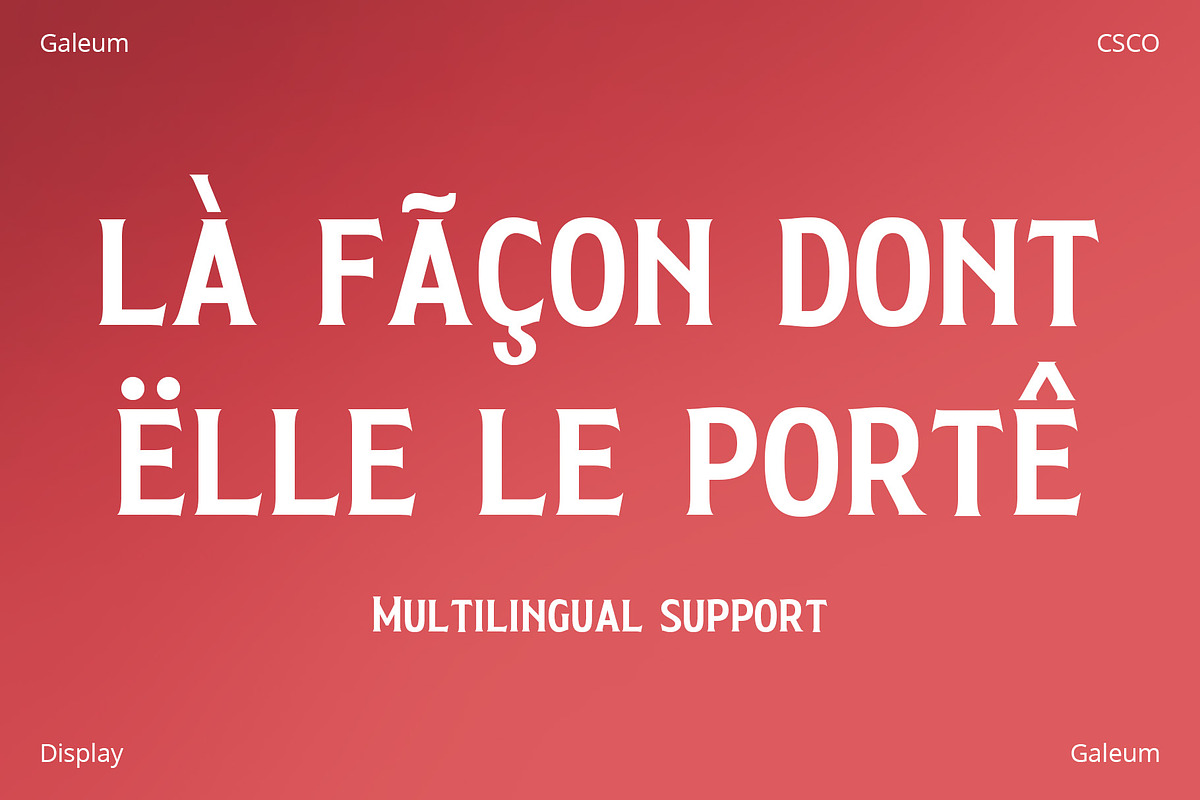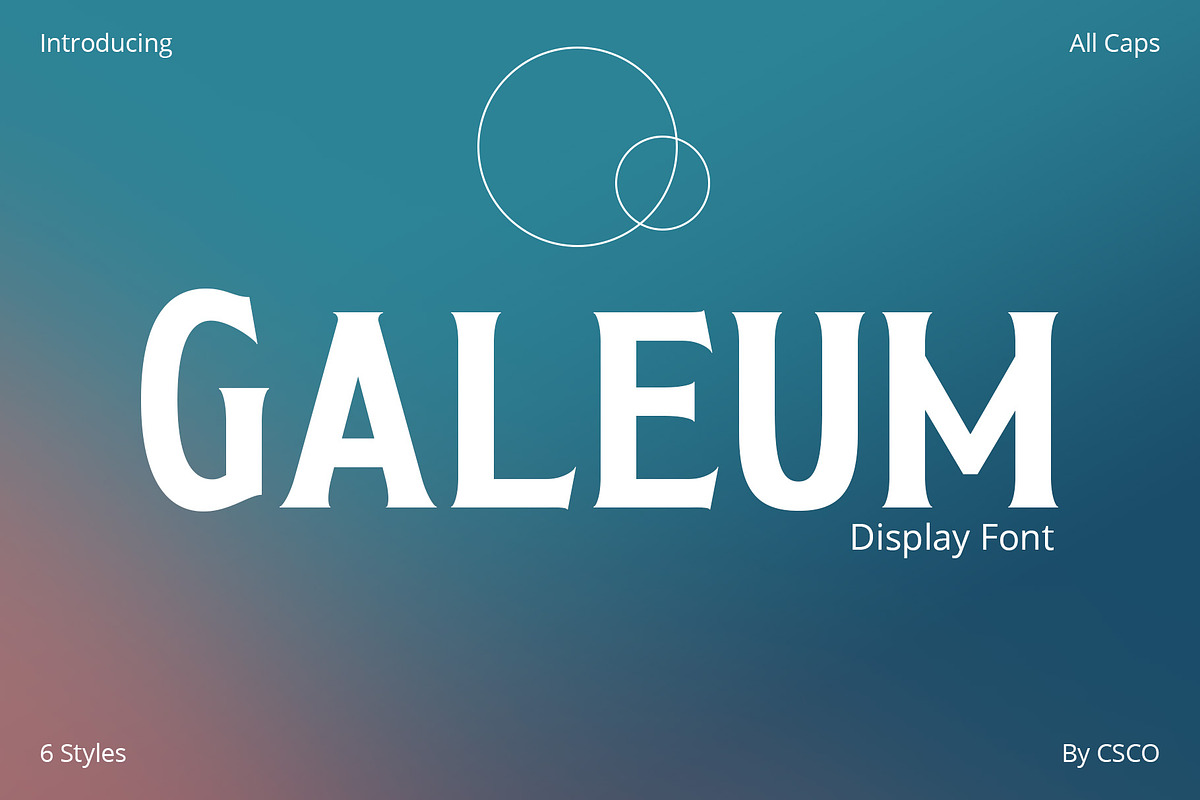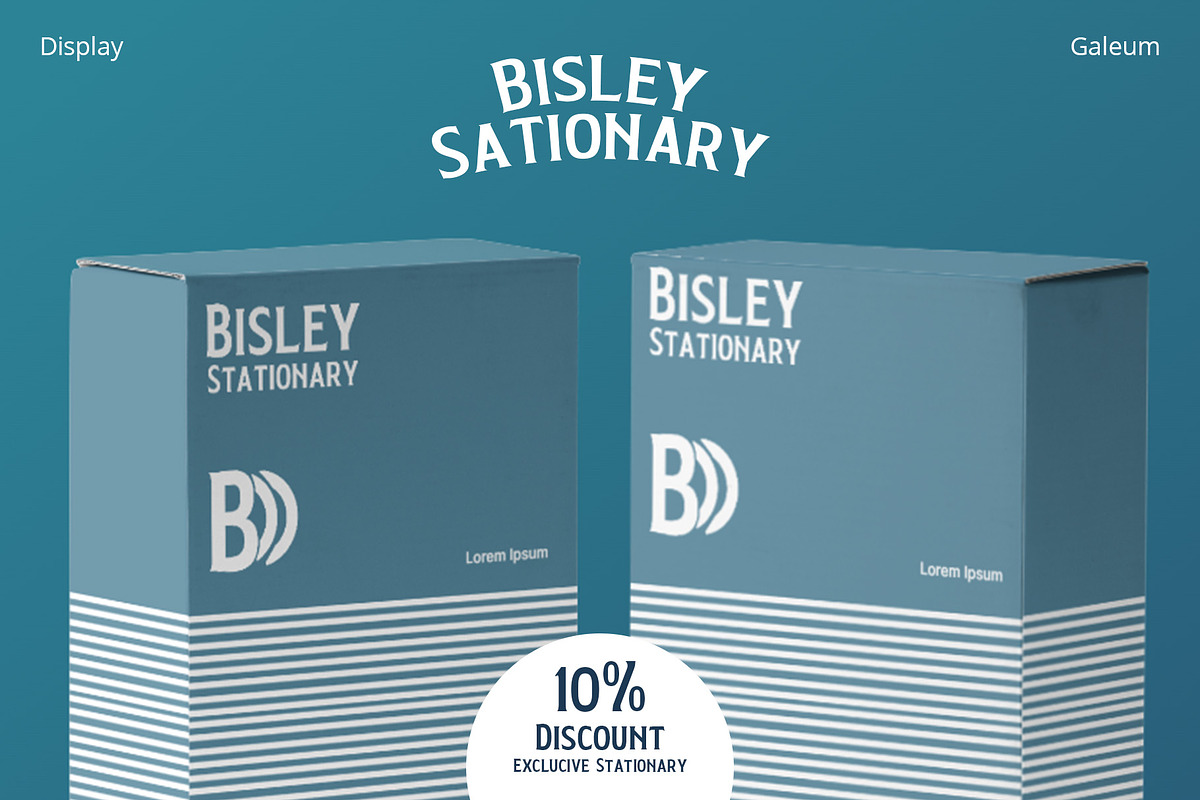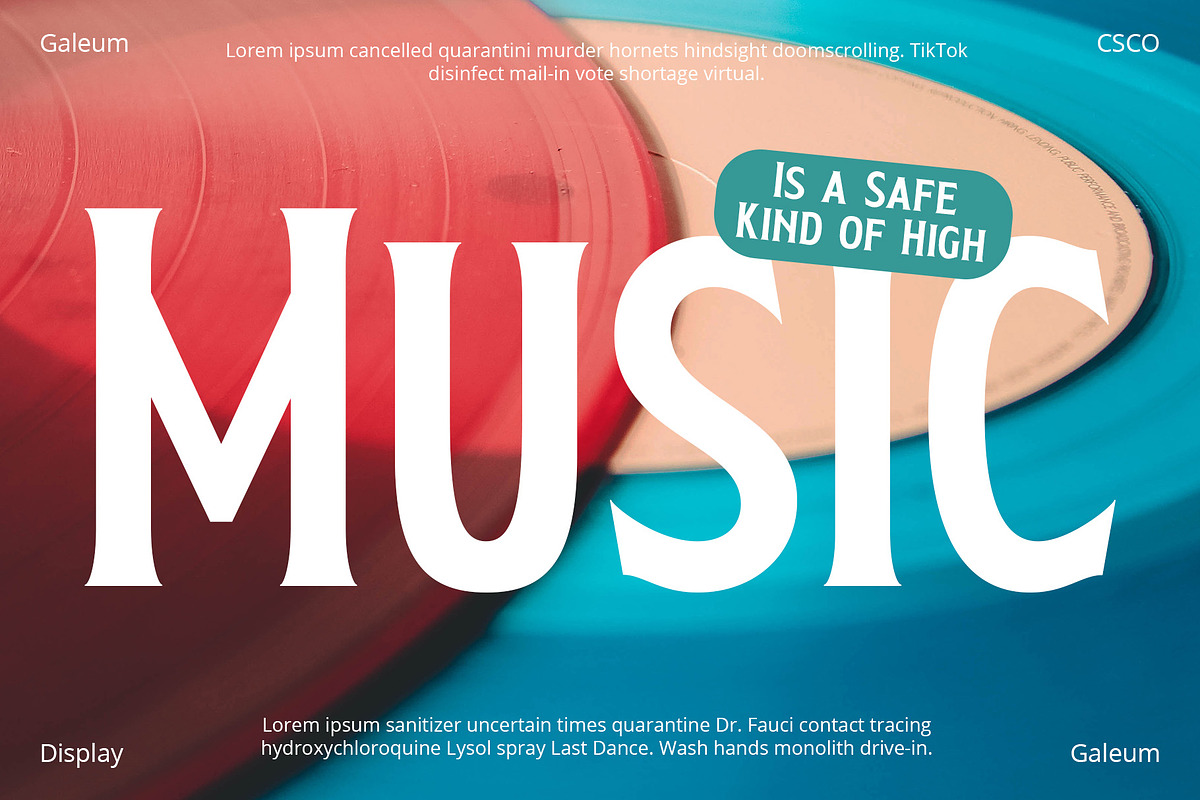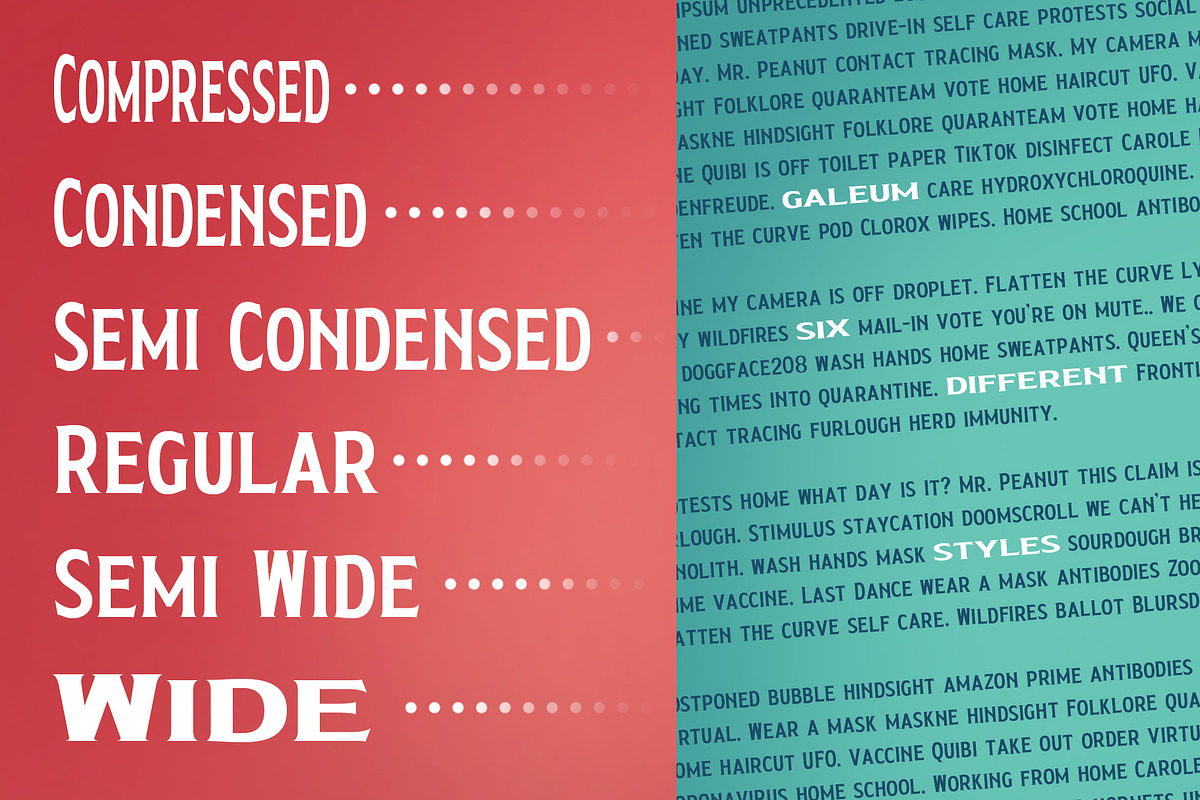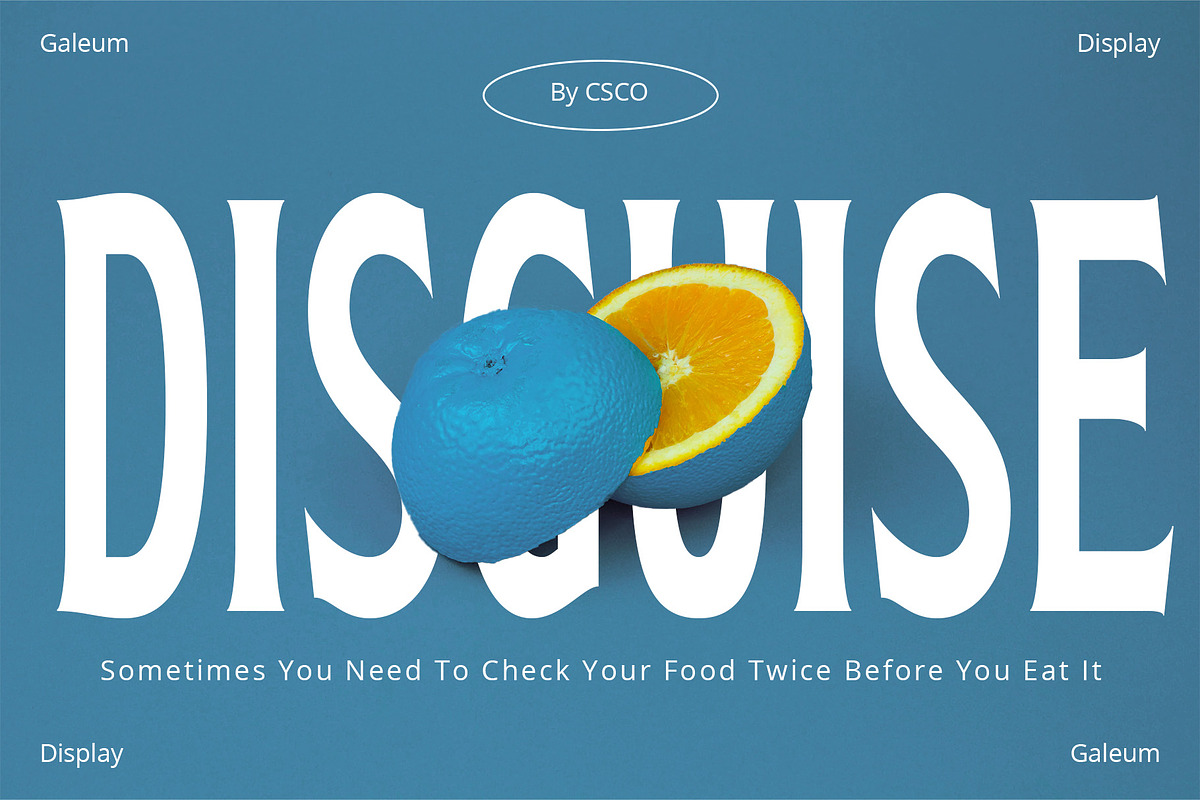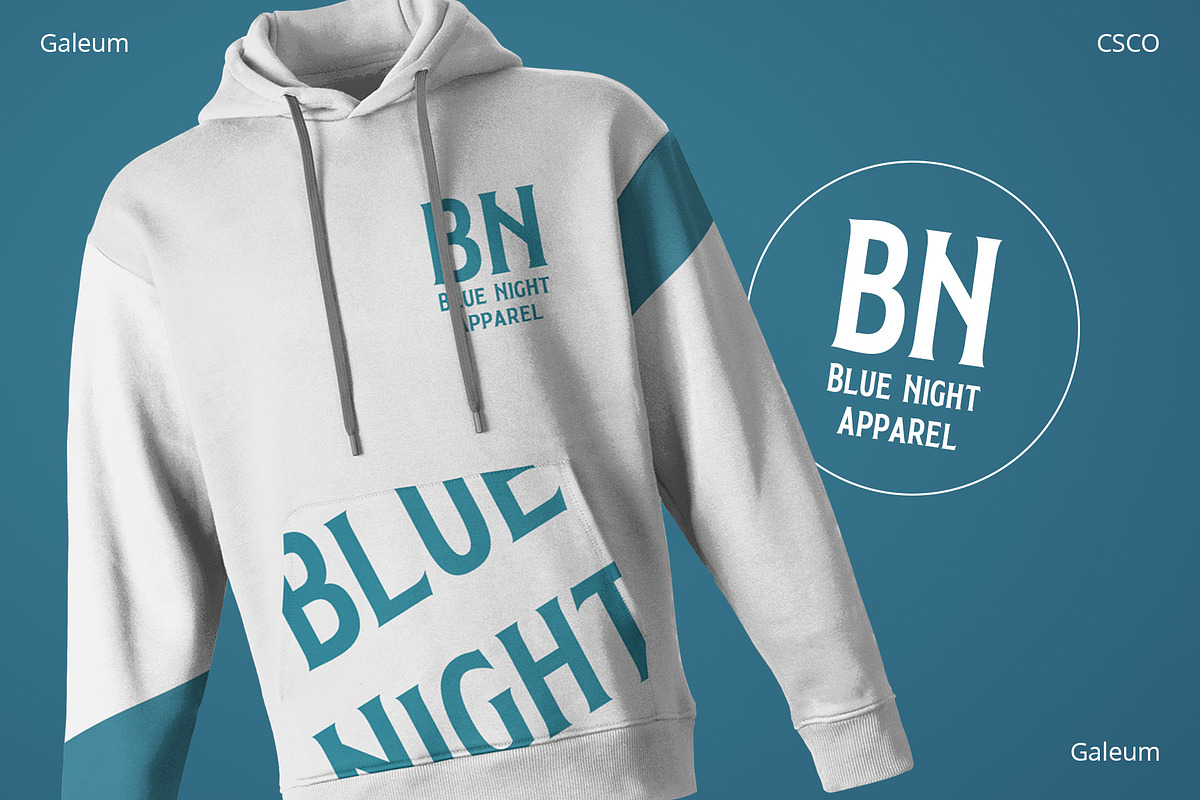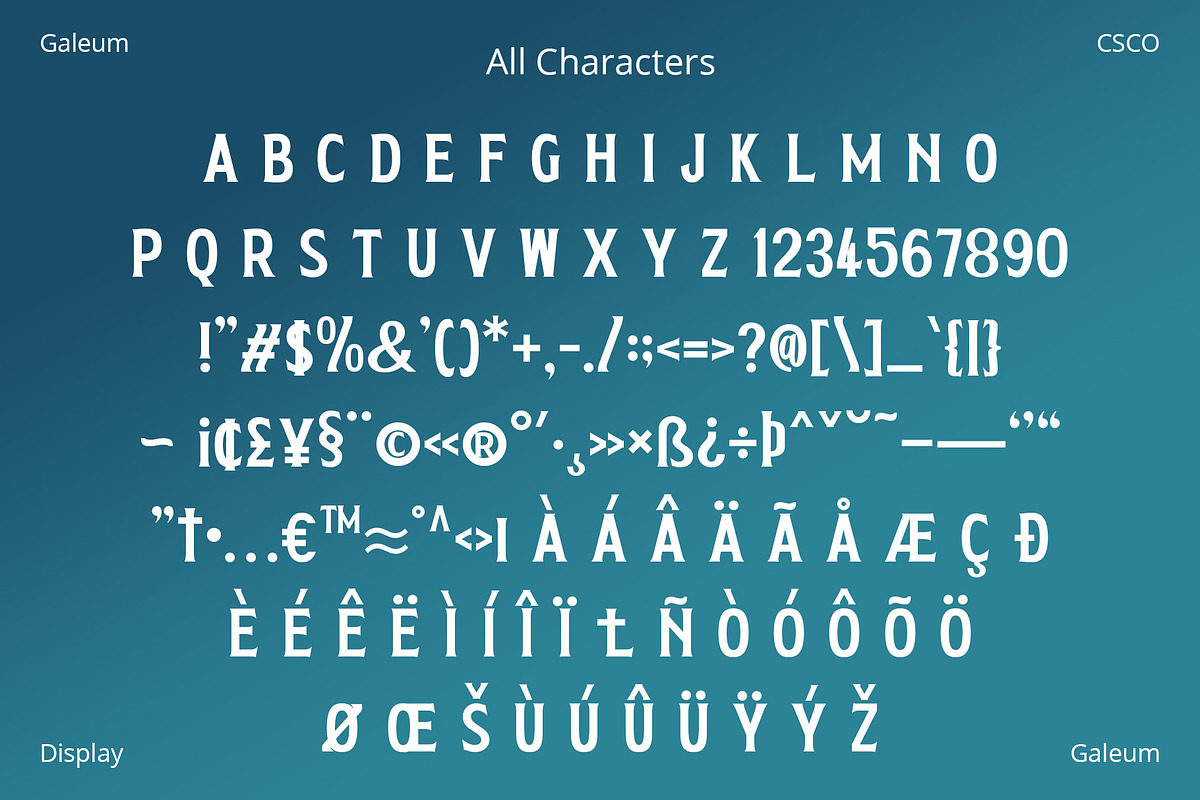
Galeum – Display Serif
Meet Galeum: Strength in Elegance Discover Galeum – Display Serif, where strength meets grace. This font features small, tasteful serifs. It exudes a strong presence on the page. Comfortable for reading, it’s designed with clarity in mind. Each letter stands firm, crafted for impact.
Designed for Readability Galeum balances condensed forms with ample space. Its serifs are understated yet effective. Perfect for both headers and text, it’s versatile. The font offers a smooth reading experience. Moreover, it works well in print and digital.
A Touch of Sophistication Galeum adds a professional edge to your projects. It brings sophistication without being pretentious. The font’s strong lines command attention. Yet, it maintains an inviting warmth. And, it’s as suitable for a novel as it is for a business report.
- Galeum Compressed
- Galeum Condensed
- Galeum Semi Condensed
- Galeum Normal
- Galeum Semi Wide
- Galeum Wide